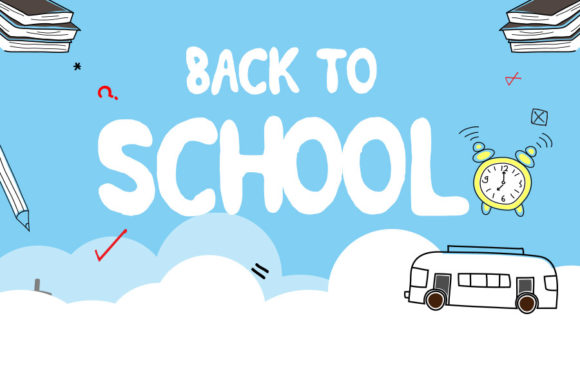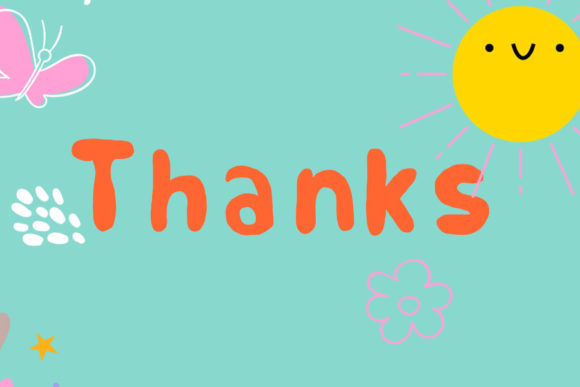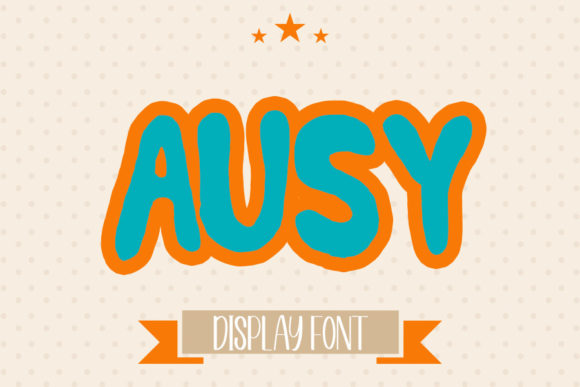
Ausy Font: The Cool and Fun Display Font for Your Creative Projects
Are you looking for a font that can add a playful and lovely touch to your designs? Look no further than Ausy Font! This cool and fun looking display font is perfect for cartoon related designs, children games, and any other creation that requires a whimsical feel. In this article, we’ll dive into the features and benefits of Ausy Font, and explore how you can use it to take your designs to the next level.
What is Ausy Font?
Ausy Font is a display font designed to bring a sense of fun and playfulness to your designs. Its unique and quirky style makes it perfect for projects that require a lighthearted and youthful feel. Whether you’re creating a logo, a poster, or a children’s book, Ausy Font is sure to make your design stand out.
Key Features of Ausy Font
- Unique and Quirky Style: Ausy Font has a one-of-a-kind design that is sure to grab attention. Its fun and playful style makes it perfect for designs that require a youthful and energetic feel.
- Highly Versatile: Ausy Font is a highly versatile font that can be used for a wide range of projects, from cartoon related designs to children’s games and more.
- Easily Readable: Despite its playful style, Ausy Font is easily readable, making it perfect for designs that require a clear and concise message.
So why should you choose Ausy Font for your next project? Here are just a few benefits of using this amazing font:
- Adds a Playful Touch: Ausy Font adds a playful and whimsical touch to your designs, making them more engaging and fun to look at.
- Increases Creativity: With Ausy Font, you can let your creativity shine and create designs that are truly unique and original.
- Perfect for Children’s Designs: Ausy Font is perfect for designs aimed at children, such as children’s books, games, and educational materials.
How to Use Ausy Font in Your Designs
Using Ausy Font in your designs is easy! Here are a few tips to get you started:
- Pair it with Other Fonts: Ausy Font pairs well with other fonts, such as sans-serif fonts like Arial or Helvetica. Experiment with different font combinations to create a unique look.
- Use it for Headings: Ausy Font is perfect for headings and titles. Use it to add a playful touch to your design and draw attention to important information.
- Experiment with Colors: Ausy Font looks great in a variety of colors. Experiment with different colors to find the perfect combination for your design.
In conclusion, Ausy Font is a cool and fun looking display font that is perfect for designers and crafters looking to add a playful touch to their designs. With its unique and quirky style, highly versatile design, and easily readable text, Ausy Font is sure to become a favorite in your font collection. So why wait? Download Ausy Font today and start creating designs that are truly fun and engaging!
- What is Ausy Font?: Ausy Font is a cool and fun looking display font designed for cartoon related designs, children games, and other creative projects.